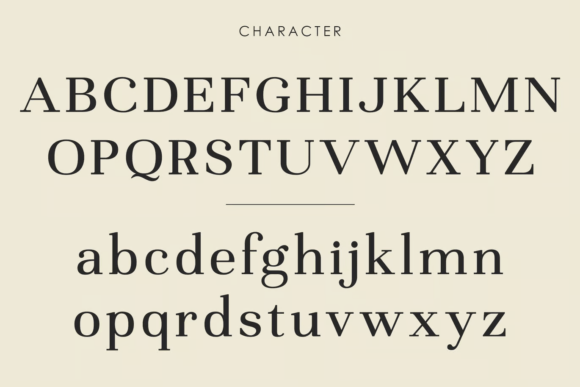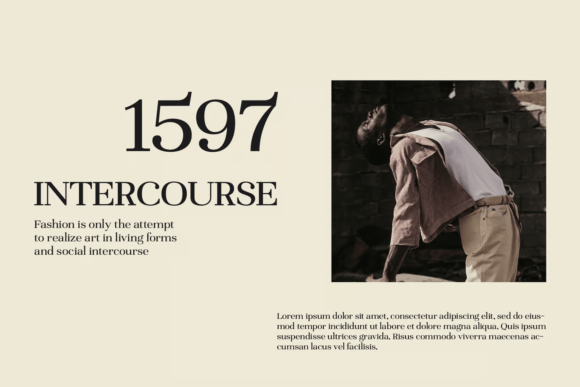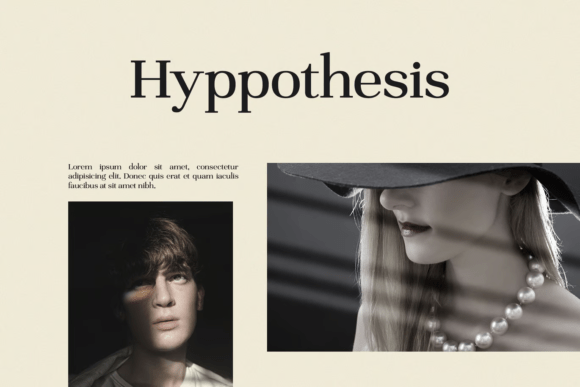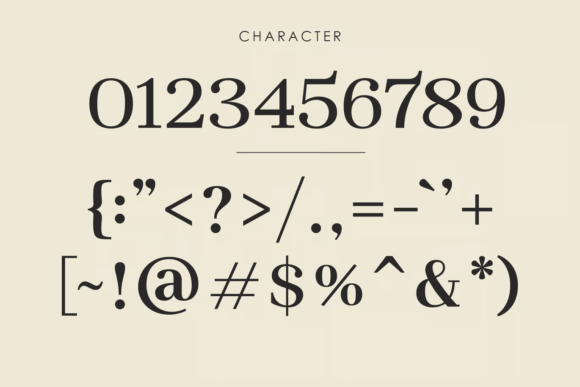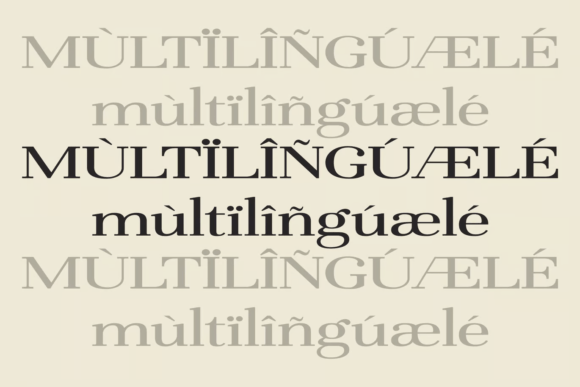
Crystal Bries Font: Elevate Your Designs with Timeless Elegance
In the world of typography, a font can make or break a design project. If you’re looking for a font that exudes luxury, sophistication, and artistic flair, look no further than Crystal Bries. This elegant display serif font is designed to bring a touch of timeless elegance to your designs, making it perfect for a wide range of applications.
What is Crystal Bries Font?
Crystal Bries is a display serif font that seamlessly blends classic sophistication with modern sensibilities. Its bold yet graceful letterforms are carefully crafted to bring a sense of luxury and refinement to any design project. Whether you’re working on a premium branding campaign, editorial design, or a wedding invitation, Crystal Bries is the perfect choice.
Crystal Bries font is versatile and can be used for a wide range of design projects, including:
- Premium branding & logos: Make a statement with your brand identity using Crystal Bries’ bold and elegant letterforms.
- Editorial design (magazines, books, catalogs): Add a touch of sophistication to your editorial designs with Crystal Bries’ refined typography.
- Wedding invitations & greeting cards: Make your special occasions even more memorable with Crystal Bries’ elegant and artistic feel.
- Posters, quotes, and packaging: Use Crystal Bries to add a touch of luxury and refinement to your posters, quotes, and packaging designs.
- Both digital and print projects: Crystal Bries is perfect for any design project that requires an elegant typographic style.
Features of Crystal Bries Font
Crystal Bries font comes with a range of features that make it a versatile and practical choice for designers. Some of its key features include:
- Uppercase & lowercase letters: Crystal Bries includes a full set of uppercase and lowercase letters, making it perfect for a wide range of design projects.
- Numbers & punctuation: The font also includes a range of numbers and punctuation marks, ensuring that you have everything you need to create professional-looking designs.
- Multilingual support: Crystal Bries supports multiple languages, making it a great choice for designers working on international projects.
Why Choose Crystal Bries Font?
So why choose Crystal Bries font for your design projects? Here are just a few reasons:
- Professional and classy: Crystal Bries is designed to deliver a professional, classy, and eye-catching impression, making it perfect for high-end design projects.
- Elegant and artistic: The font’s elegant and artistic feel makes it perfect for designers who want to add a touch of sophistication to their designs.
- Sophistication and high-end appeal: With Crystal Bries, your design projects will stand out with sophistication and high-end appeal, making it perfect for luxury brands and high-end designs.
| Font Name | Crystal Bries Font |
| Author | Eternity STD |
In conclusion, Crystal Bries font is a versatile and elegant display serif font that is perfect for a wide range of design projects. Its timeless elegance, luxurious feel, and artistic flair make it a great choice for designers who want to add a touch of sophistication to their designs. With its range of features, including uppercase and lowercase letters, numbers and punctuation, multilingual support, and OTF and TTF formats, Crystal Bries is a practical and stylish choice for any design project.